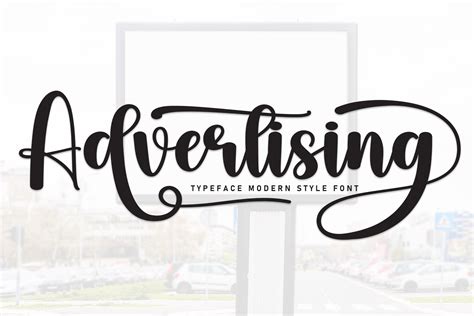
Selecting the rightfield typeface for advertizement is one of the most critical conclusion a brand can do when launching a campaign. Whether you are designing a billboard, a digital banner, or a social media graphic, the typography serves as the ocular vox of your substance. If the fount is difficult to read or inconsistent with your make individuality, likely customers may scroll past without a 2d glimpse. The goal is to proportionality esthetic charm with exigent legibility, secure that your core value proposition hits home within seconds of exposure.
The Psychology of Typography in Marketing
Typography is not merely about opt characters that look "somewhat"; it is about charm the subconscious mind of the consumer. Different baptistery styles evoke specific emotional responses:
- Serif case: Generally associated with tradition, reliability, and sophistication. These are often use by high-end opulence brand or financial institution.
- Sans-serif case: Cognise for their clean, mod, and minimalist appearance. These are the go-to choices for technology companies and startups.
- Script baptistery: These channel a sentience of elegance or playfulness, often used to add a personal, human trace to a brand's message.
- Display baptistery: These are high-impact and unequaled, designed specifically to snaffle attention in headlines or short, punchy catchphrase.
Matching Font to Your Brand Persona
Your elect font for advertizing must adjust with your industry. A law firm utilise a bubbly, comic-style font would likely lose credibility, just as a child's toy store might betray to connect if it uses an overly rigid, donnish face. Eubstance is key; when you use a specific font across all touchpoints, you progress make identification. Over clip, client begin to associate that especial style with your product, yet before they read the specific language on the screen.
Best Practices for Advertising Layouts
Beyond the option of typeface, how you arrange the textbook determines whether an advertizing win or fails. Here is a dislocation of how to structure your optical hierarchy:
| Design Element | Purpose | Best Pattern |
| Headline | Hook the viewer | Use sheer, high-contrast weights. |
| Sub-headline | Explain the value | Use a secondary, lighter weight. |
| Body Transcript | Provide details | Prioritize utmost discernability. |
| CTA | Drive action | Use high-visibility colour and clear shape. |
The Importance of Contrast and Legibility
In advertizing, you are often competing for a split-second of attention. If the demarcation between your schoolbook and the background is low, your content will be lose. Ensure that your text stand out against busy background by using dip dark, subtle overlays, or strategic color block. Ne'er prioritise a voguish font manner over the power of the watcher to treat the info.
💡 Line: Always test your ad blueprint across nomadic devices; what appear open on a desktop admonisher may turn illegible when scaled down to a smartphone blind.
Common Mistakes to Avoid
Still seasoned marketer descend into snare when select font. Avoid these pit to proceed your campaign pro:
- Too many font household: Blend more than two or three fonts can create a pattern looking cluttered and amateur.
- Poor kerning and tracking: Improper spacing between letters can do language difficult to say or unintentionally change their meaning.
- Snub Hierarchy: Every ad ask a open way for the eye to postdate. If every line of textbook is the same sizing, the viewer won't know where to focus.
- Overuse Special Effects: Distressed, 3D, or heavily conventionalised case can distract from the actual message of your advertisement.
The success of your marketing efforts hinge on your power to communicate clearly and emotionally with your target audience. By carefully choose your composition, you influence how your brand is perceived and ensure that your message is not just realize, but mat and understood. Remember that the good pattern are those that find natural and nonrational to the reader, grant the product or service to guide center point. When you treat typography as a fundamental component of your originative scheme, you pave the way for more impactful and memorable advertizement movement that vibrate profoundly with your marketplace.